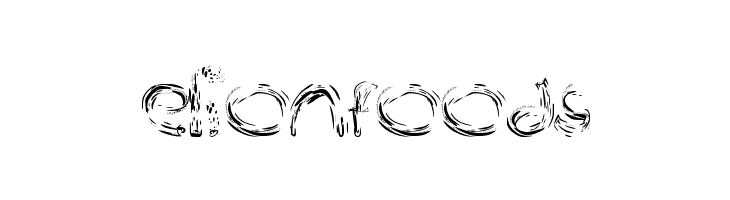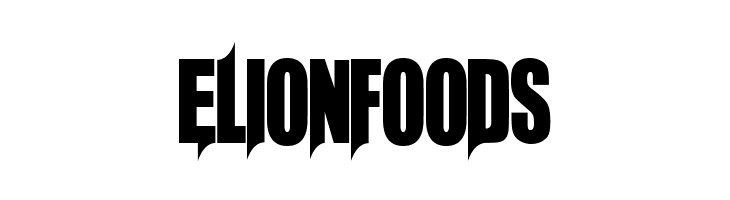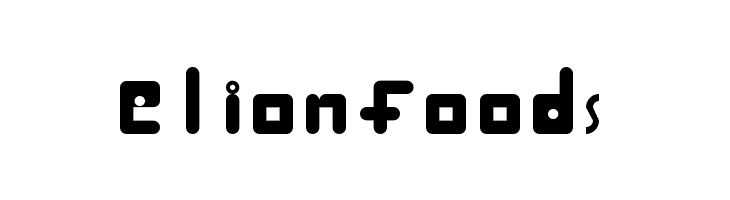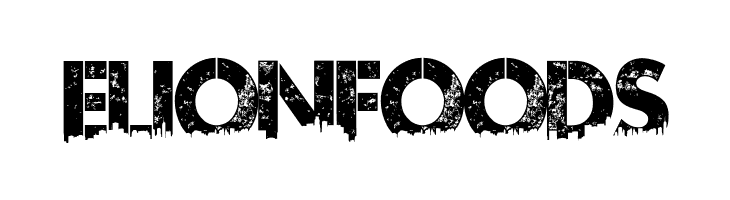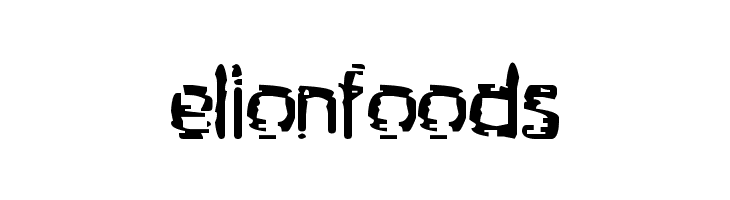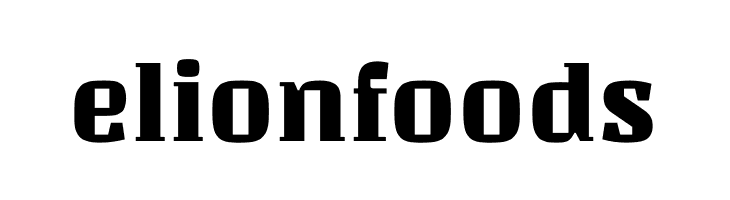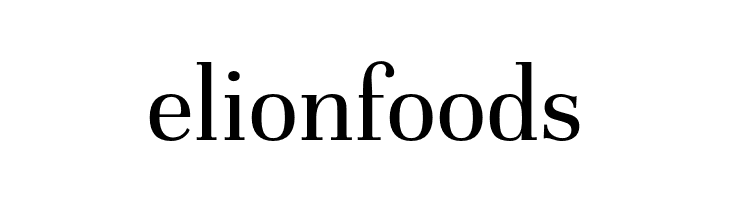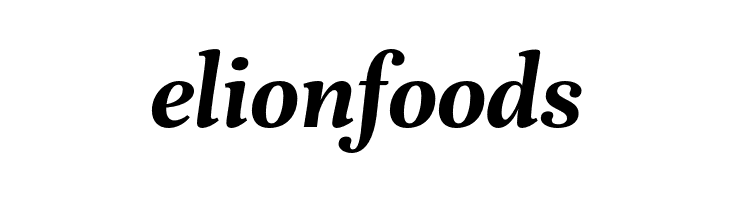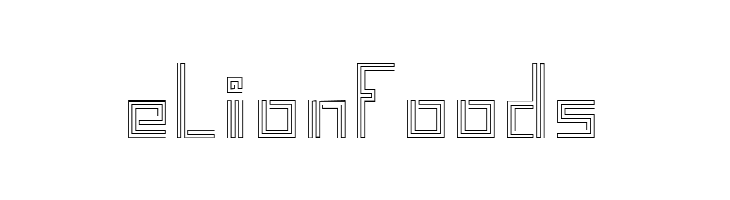
A bold, glitch-inspired font with a modern, distressed look.
A bold, slab serif font with strong, impactful characters.
Bold and italic serif font with a classic yet modern appeal.
A classic serif font with elegant and refined letterforms.
A bold, geometric font with high contrast and minimal spacing.
A decorative font with swirling, brushstroke-like characters, full of movement and energy.
A geometric, multi-line font with a futuristic and digital aesthetic.
A bold, distressed font with an urban, gritty aesthetic.